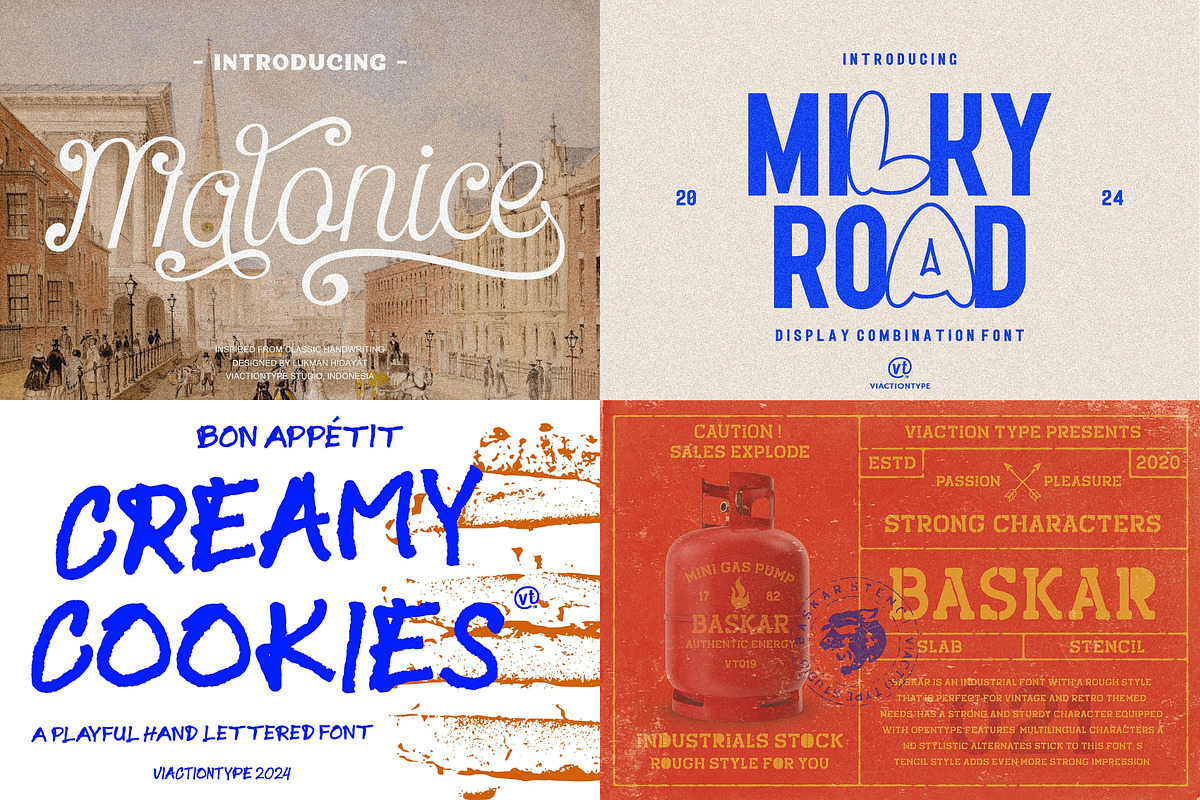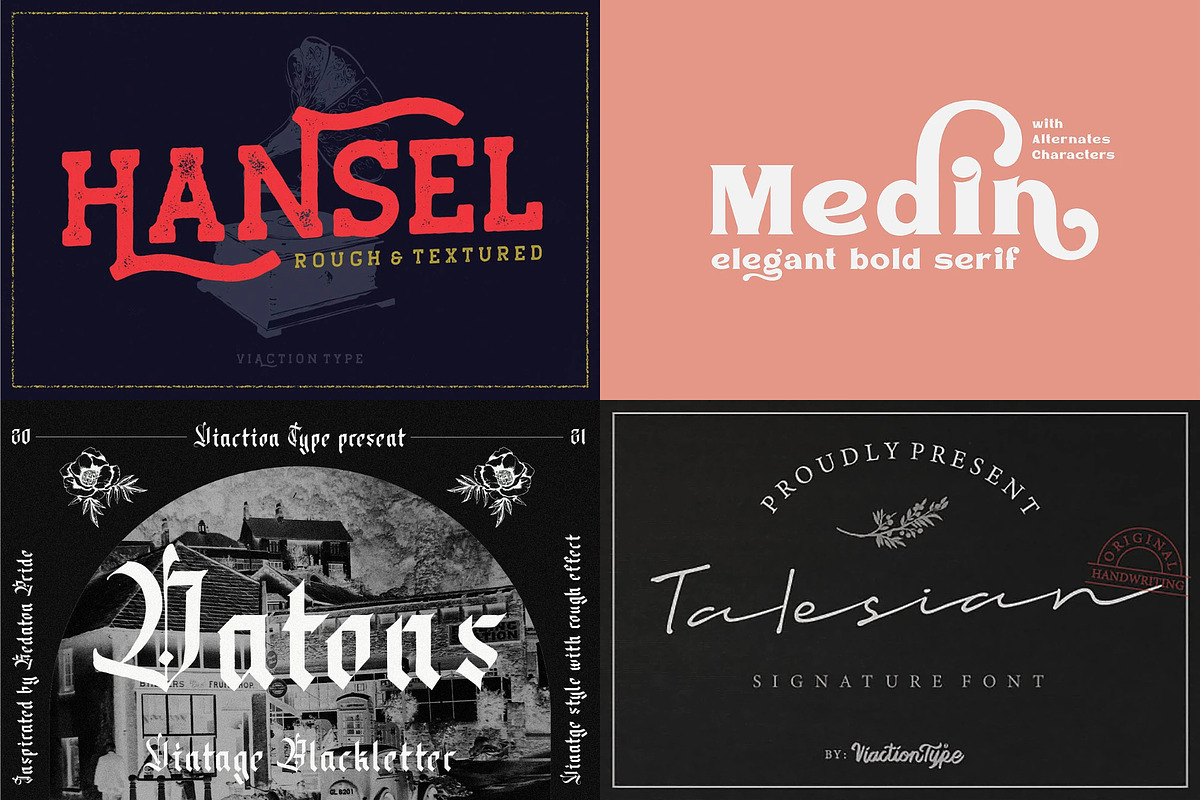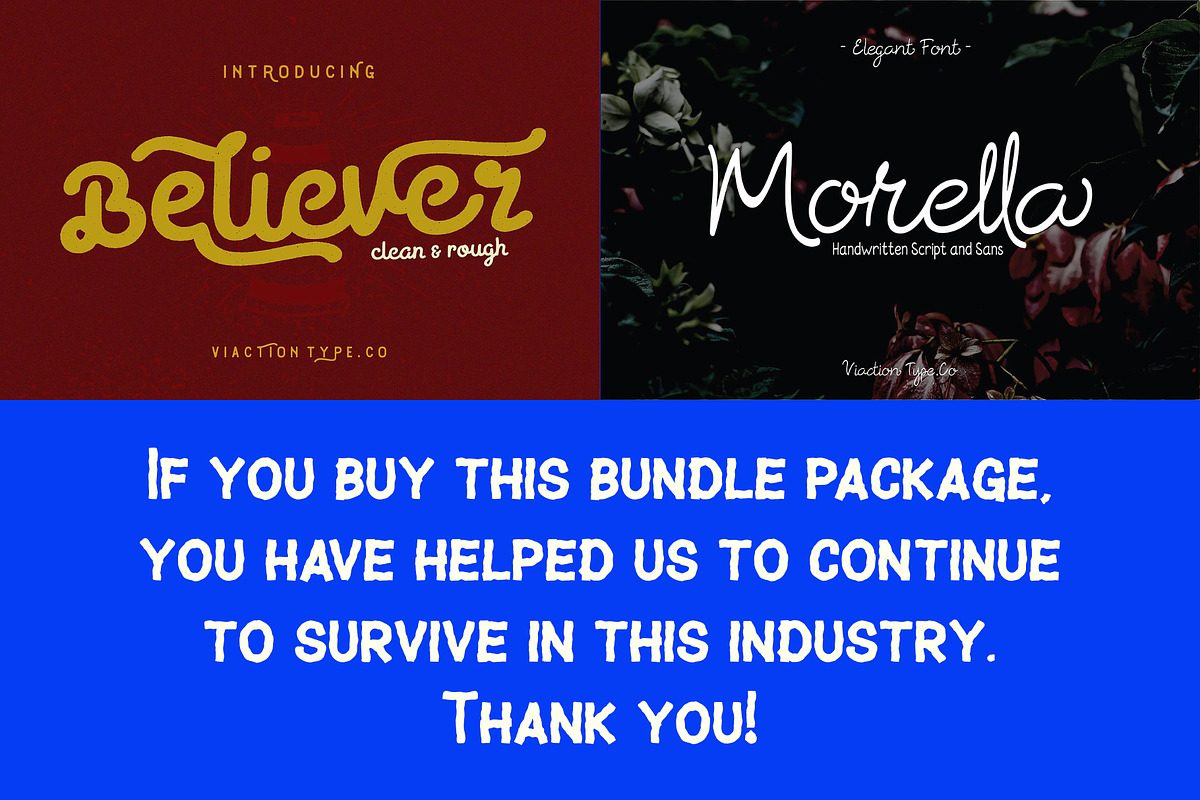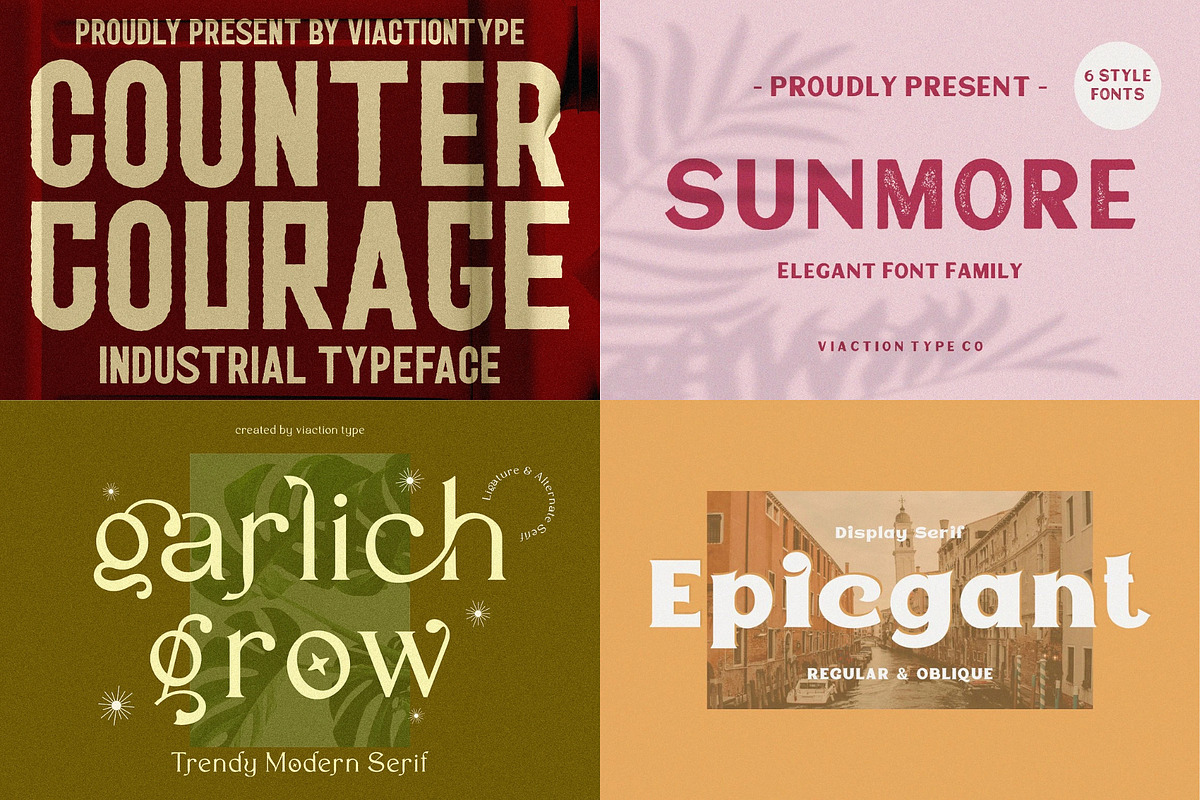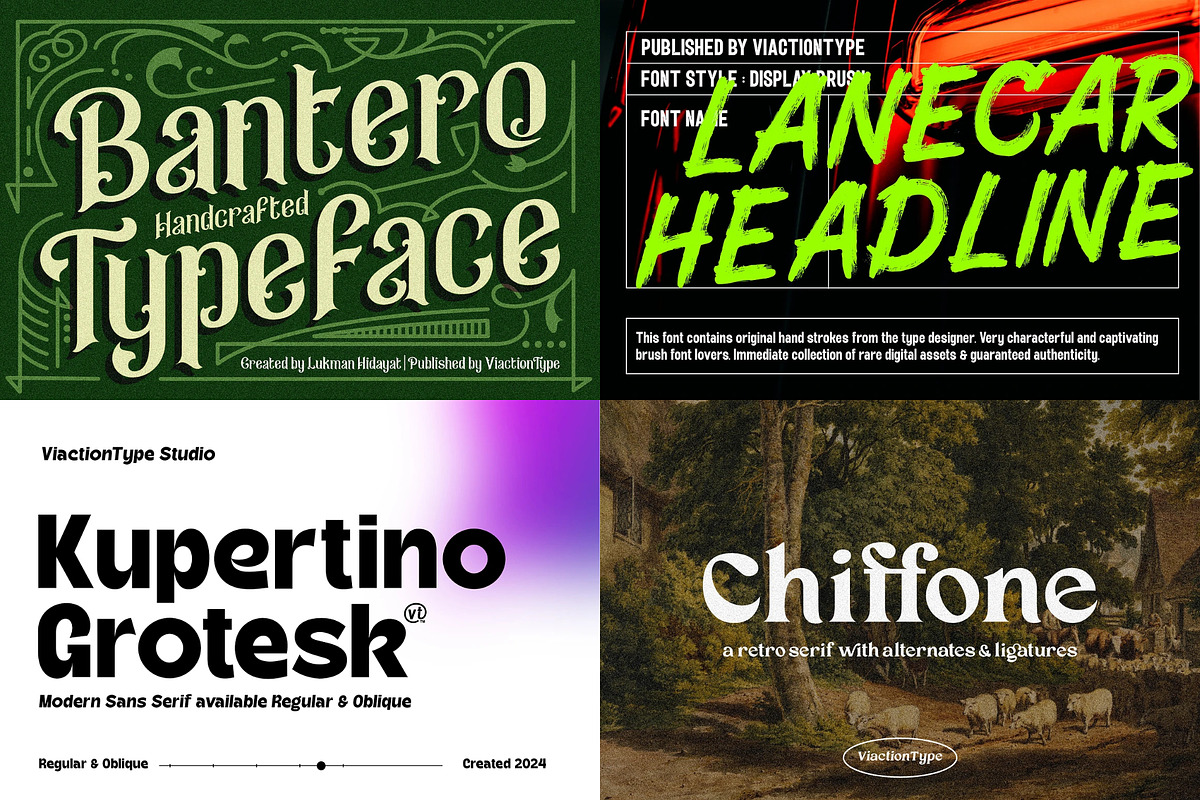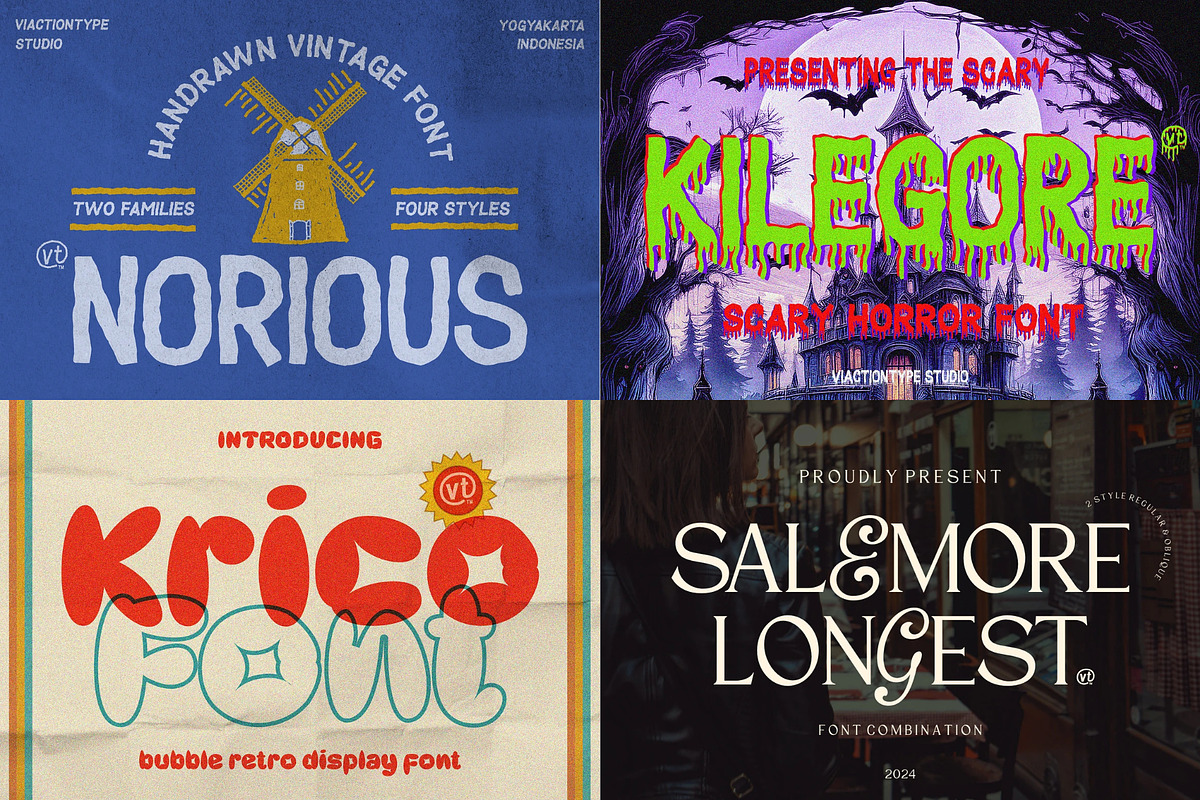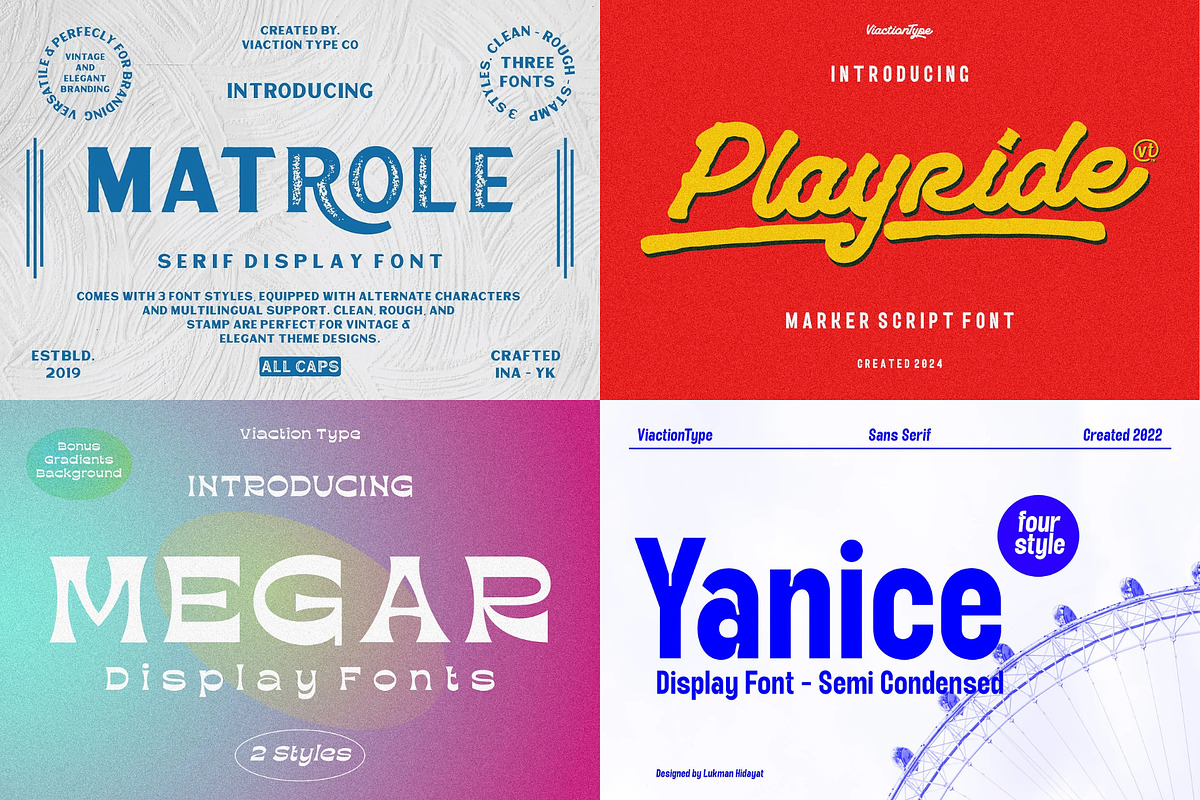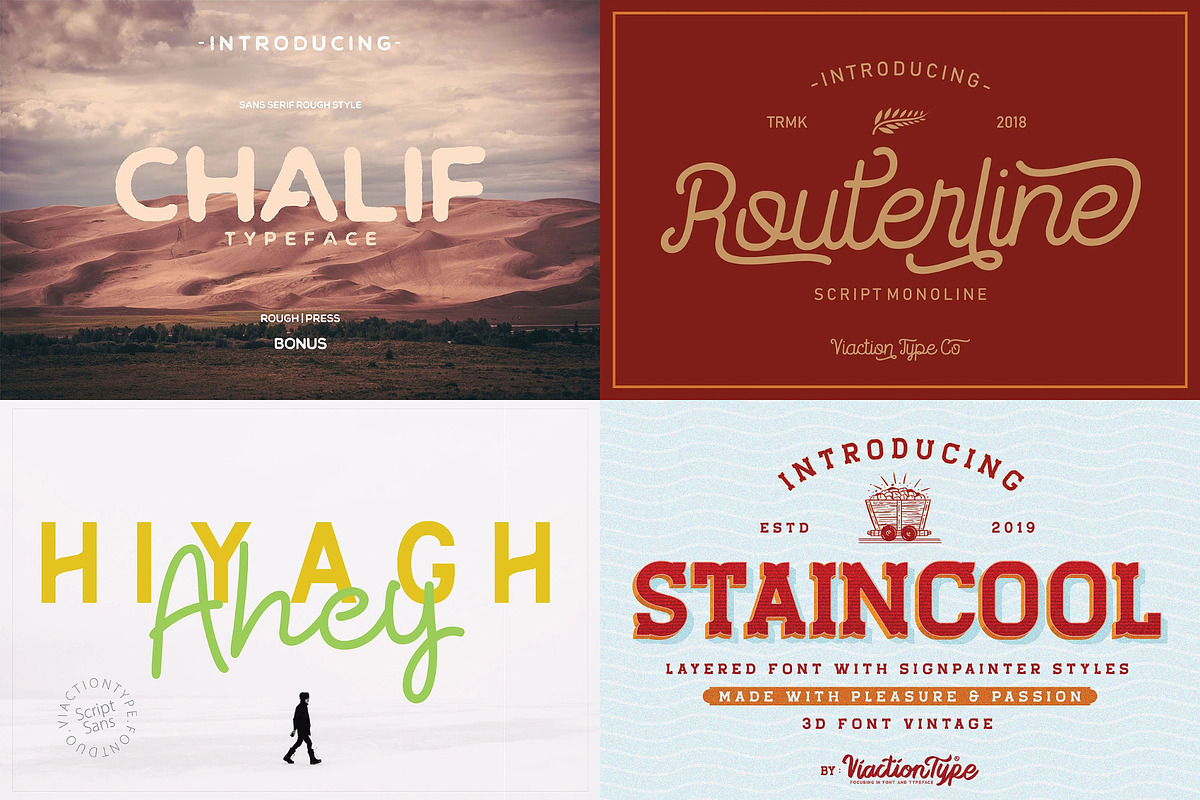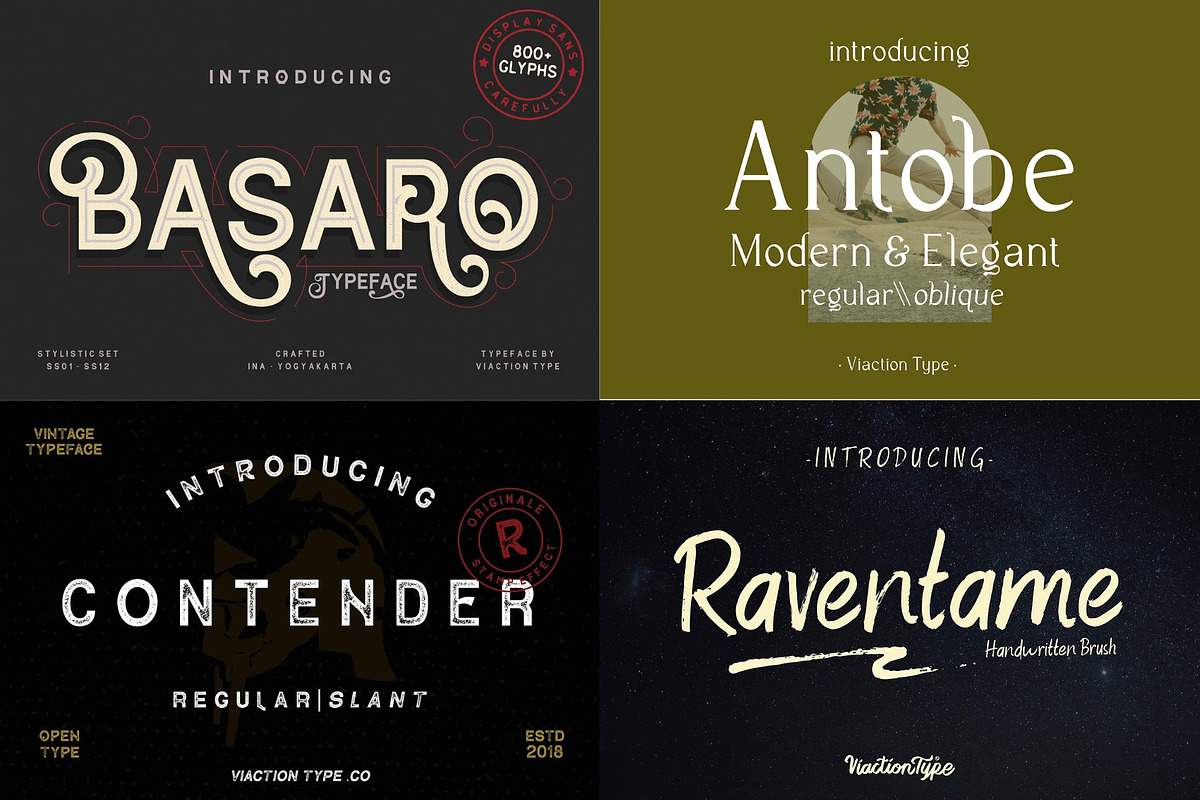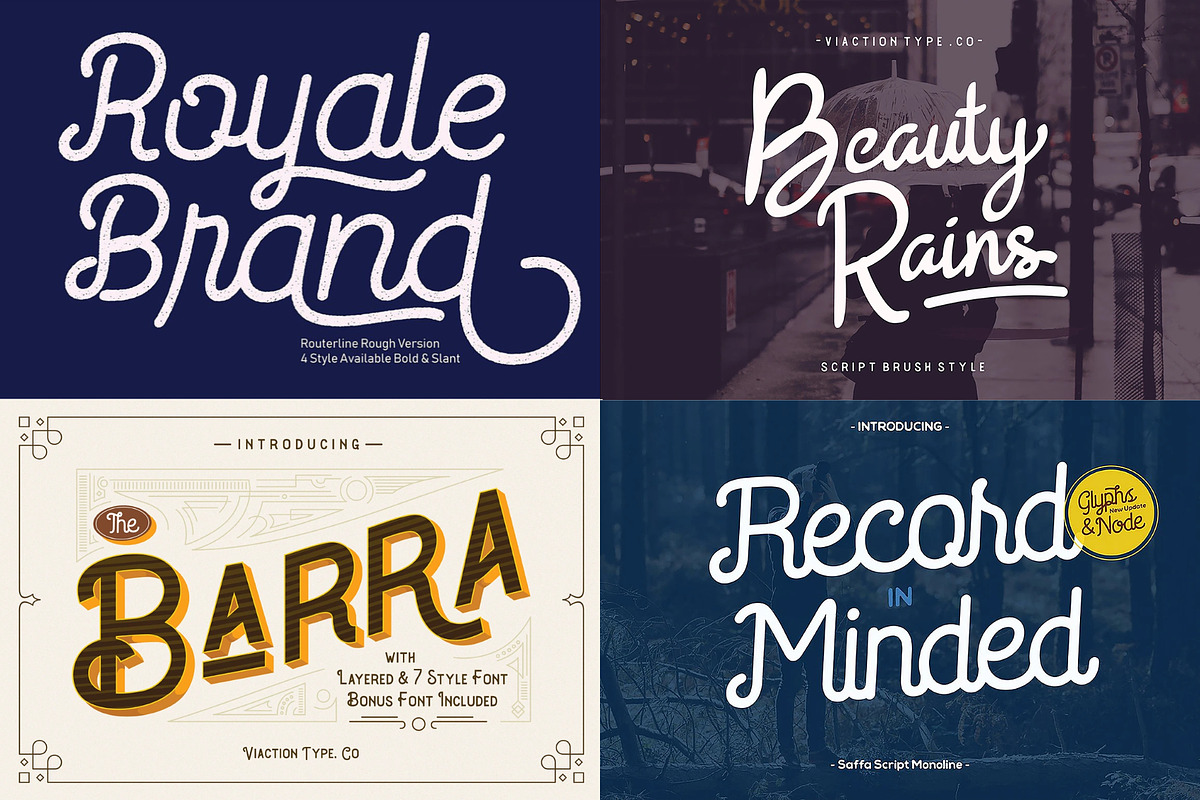
VT Treasure Font Bundle
Treasure Font Bundle – A Perfect Collection for Every Design Need
Discover the Treasure Font Bundle, a premium collection of fonts designed to elevate your creative projects. This bundle features a diverse range of categories, including sans serif, serif, script, blackletter, handwriting, and display fonts, catering to all your design styles and preferences.
Whether you're crafting logos, branding, posters, social media graphics, invitations, or websites, this bundle has the perfect font to match your vision. Each typeface is carefully curated for versatility and high-quality design, making it ideal for professionals and beginners alike.
Versatile Selection: From elegant serifs to bold blackletters, find the perfect font for any project.
High-Quality Design: Professionally crafted typefaces with attention to detail.
Unlimited Creativity: Experiment with a variety of styles to enhance your designs.
Whether you’re aiming for sophistication, playfulness, or a modern edge, the Treasure Font Bundle has you covered. Transform your ideas into stunning designs with this must-have font collection.